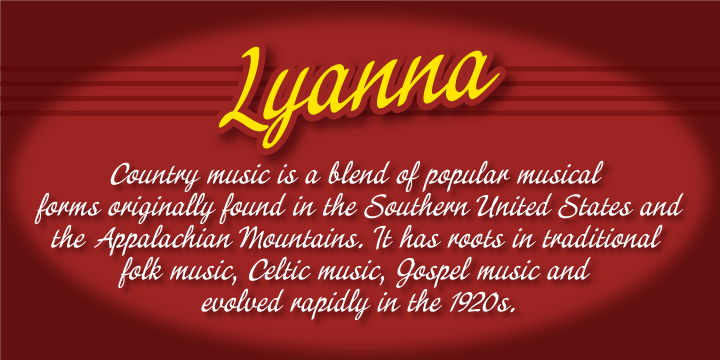
Lyanna
Free flowing legible connected-script. Suitable for various applications such as captions, fashion headlines, packaging, invitations, cards, posters, ads, greeting cards, book jackets & covers.